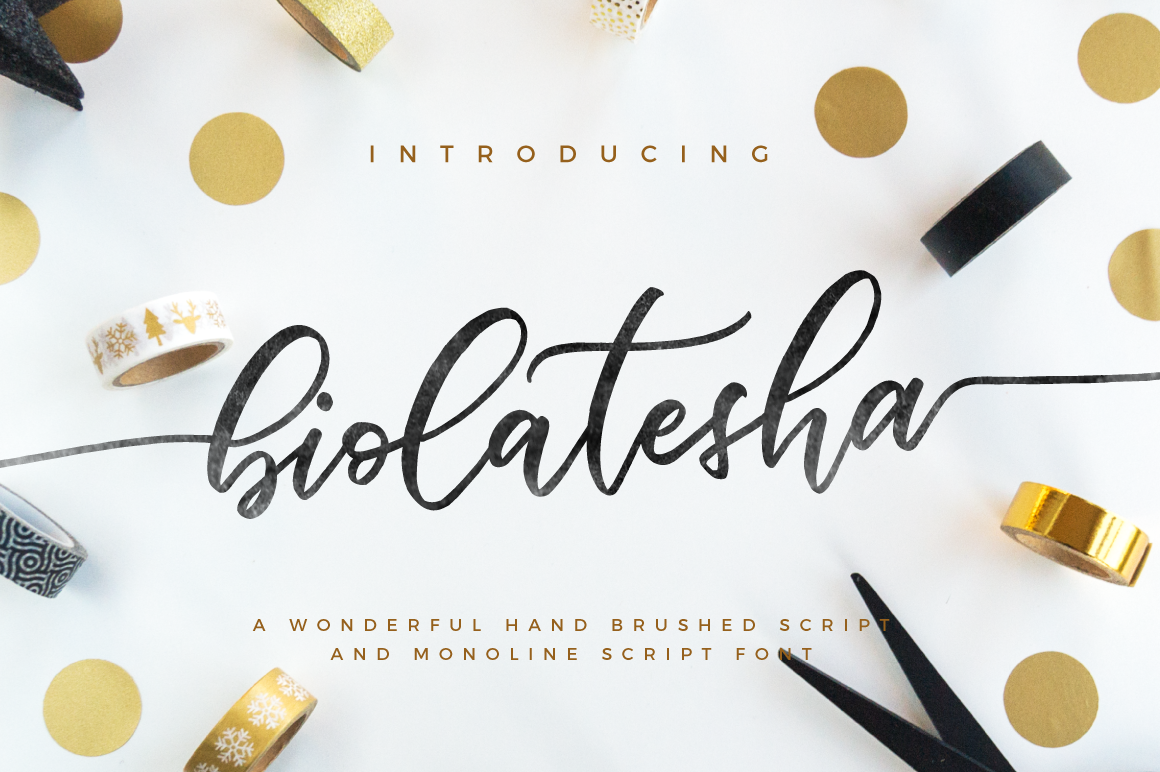
Biolatesha Calligraphy Font
A new year, a new start, a new font :)
Biolatesha is a wonderful hand-brushed and monoline calligraphy script fonts.
Suitable for any design needs, modern invitation design, branding, stationery design, blog design, modern advertising design, invitation, Art Quote, Home decor, Book/Cover Title, Invitation, special events, birthday, custom mug, pillow, t-shirts, any hand-brushed calligraphy needs and more.
Biolatesha 1 - a hand-brushed calligraphy font comes with upper and lowercase Standard Characters, Punctuation, Numerals. And other Glyphs variation of the OpenType features such as Stylistic Alternates, Stylistic Sets and some Ligatures. Alternates are available for lowercase characters.
Biolatesha 2 - a calligraphy monoline script font comes with upper and lowercase Standard Characters, Punctuation, Numerals. And other Glyphs variation of the OpenType features such as Stylistic Alternates, Stylistic Sets and some Ligatures. Alternates are available for lowercase characters.